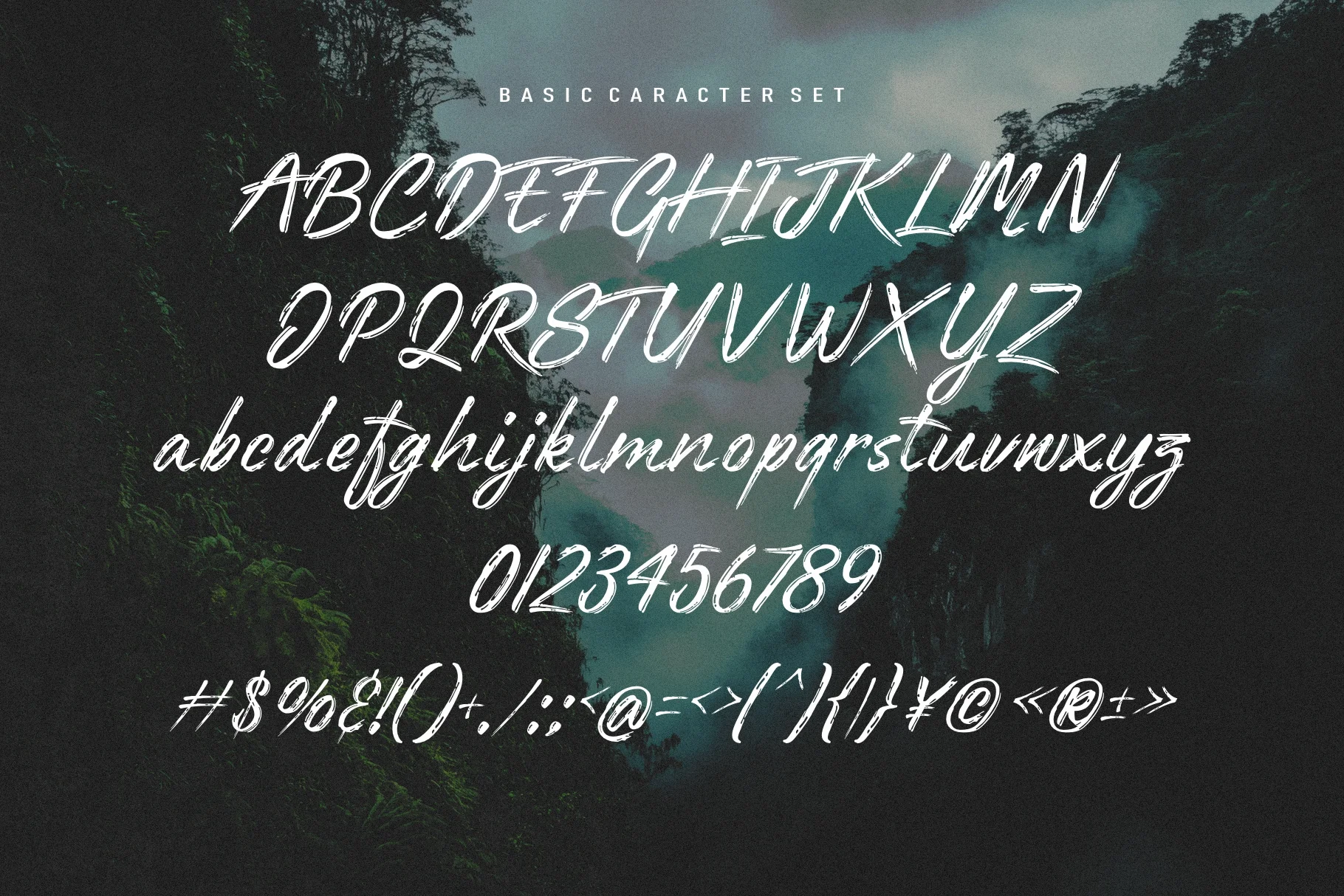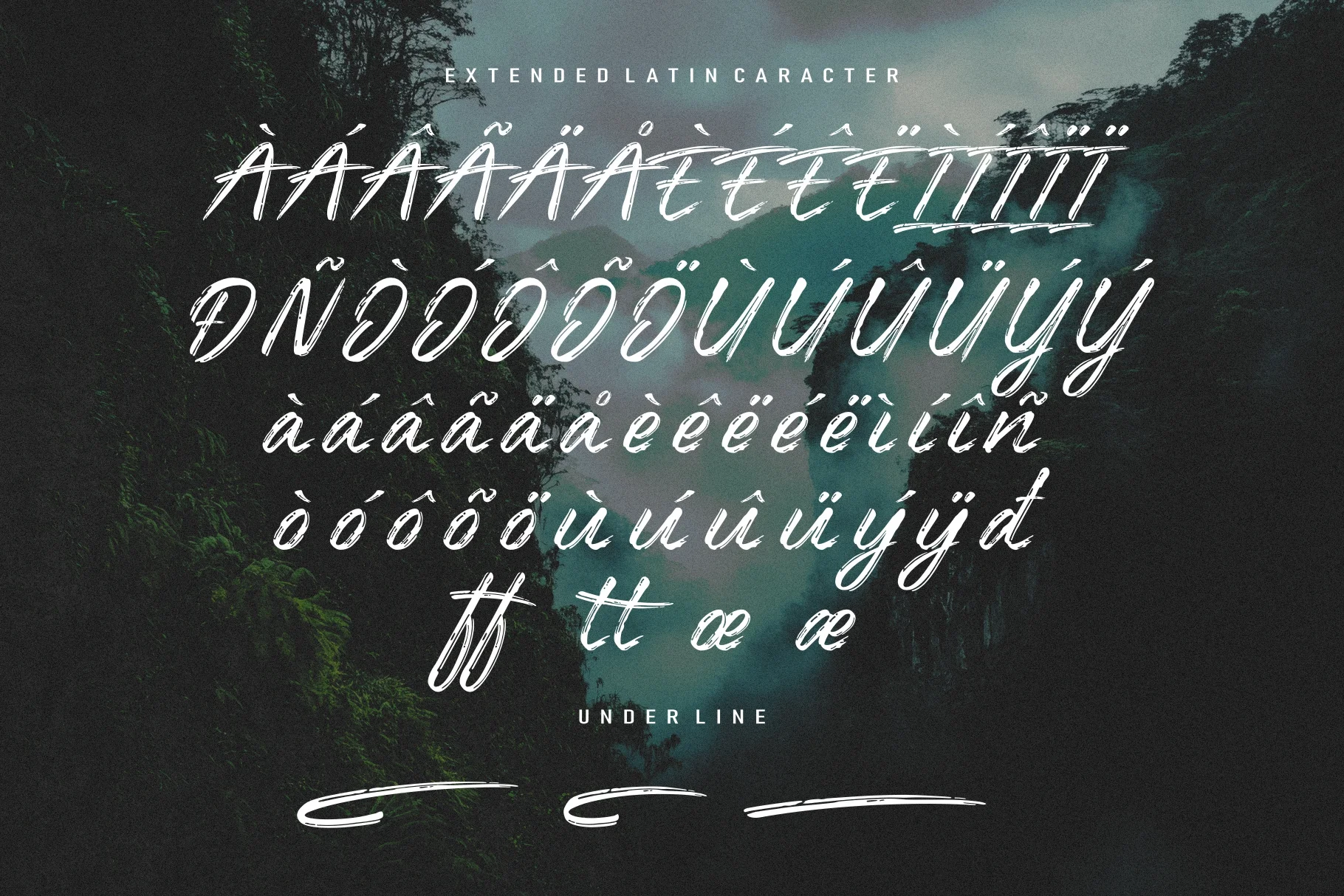
Rattin
Rattin is a brush-based typeface called Rattin. This typeface has a distinctive, casual, and textured handwritten look.
- Style: This typeface has a handwritten style with thick, natural brushstrokes, giving it an authentic and expressive feel.
Features: As shown in the image, this typeface features alternate swashes (additional decorative strokes on the letters) and ligatures to enhance the design's variety and flow.
- Impression: Its bold and informal characteristics make it suitable for a variety of design projects that require a personal or artistic touch.
- General Uses: This typeface is popular for branding, product packaging, quotes, invitations, and social media designs.